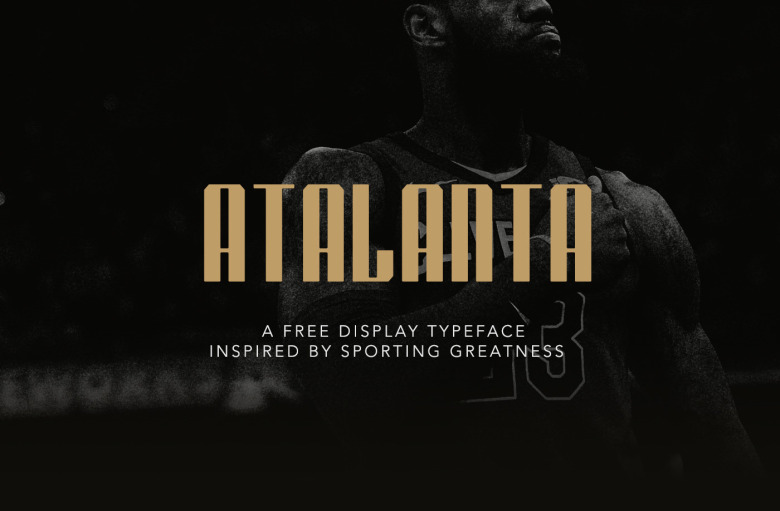
Atalanta Typeface
Introducing Atalanta Font! It is designed and shared by Jose Manuel Vega. Atalanta is a free display typeface inspired by sporting greatness. This free display typeface is great for headlines, magazines and posters. Atalanta is available in one weight and includes capital letters, special glyphs and punctuation.
Atalanta Display Typeface